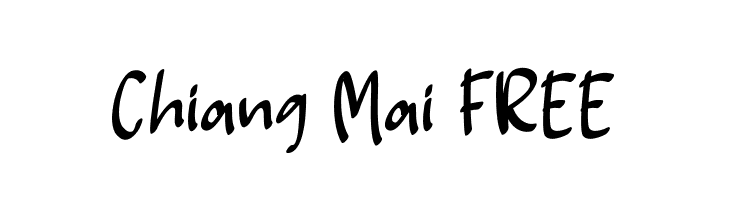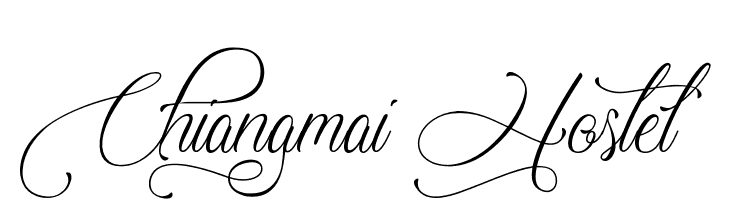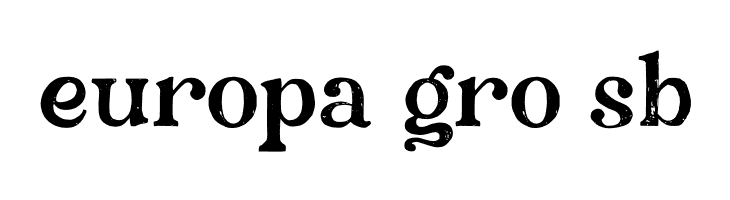
A playful, bold font with whimsical and irregular shapes.
A playful, hand-drawn style with textured, irregular edges.
An elegant, cursive font with intricate loops and swirls.
A playful, rounded font with a hand-drawn aesthetic and consistent stroke width.
A playful, rounded font with smooth curves and a friendly appearance.
A playful, handwritten font with flowing, interconnected strokes.
A modern, geometric sans-serif font with clean lines and uniform strokes.
A fluid and graceful script font with interconnected letters and dynamic strokes.
A bold, vintage serif font with a distressed, handcrafted look.
An elegant and sophisticated script font with intricate, flowing characters.